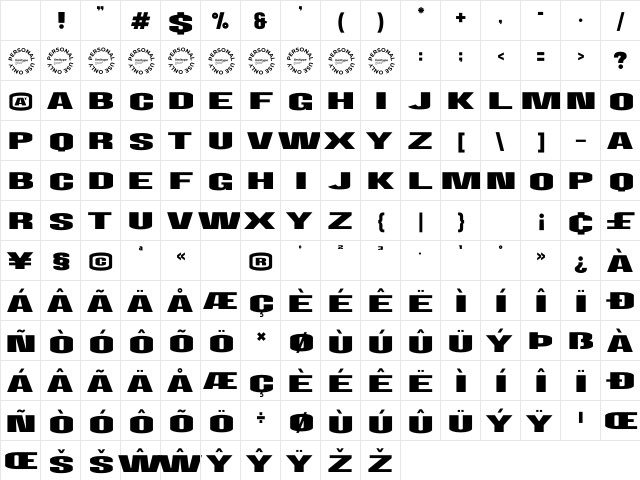
Complete Xenku Display Demo glyph index. Displaying only characters natively supported by Xenku Display Demo font.
Xenku is built around its visual character rather than neutral utility - its distinctive forms are designed to make an impression at display sizes.
Font Pairing: Pair with a clean neutral sans-serif for body copy to let Xenku's character lead without overwhelming the composition.
Pro Tip: Use Xenku exclusively at display sizes - it was designed to be seen, not read at length. Let a neutral companion handle body copy.